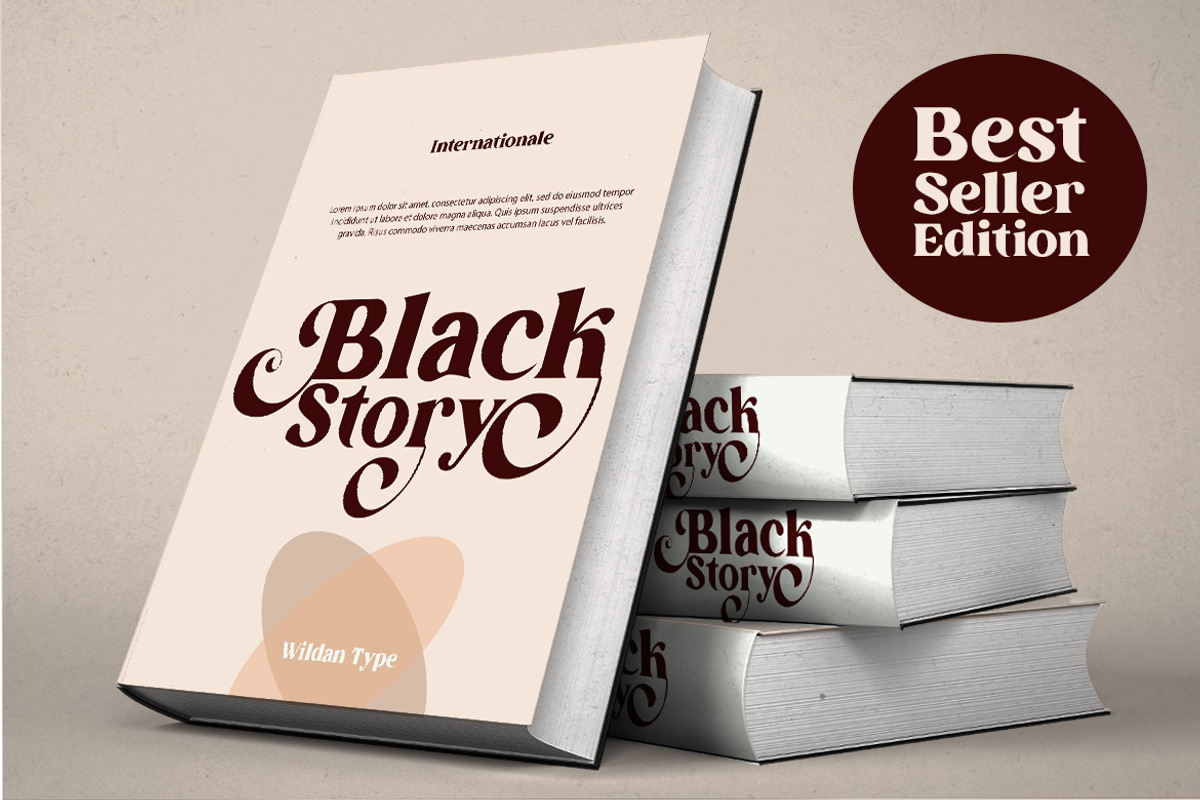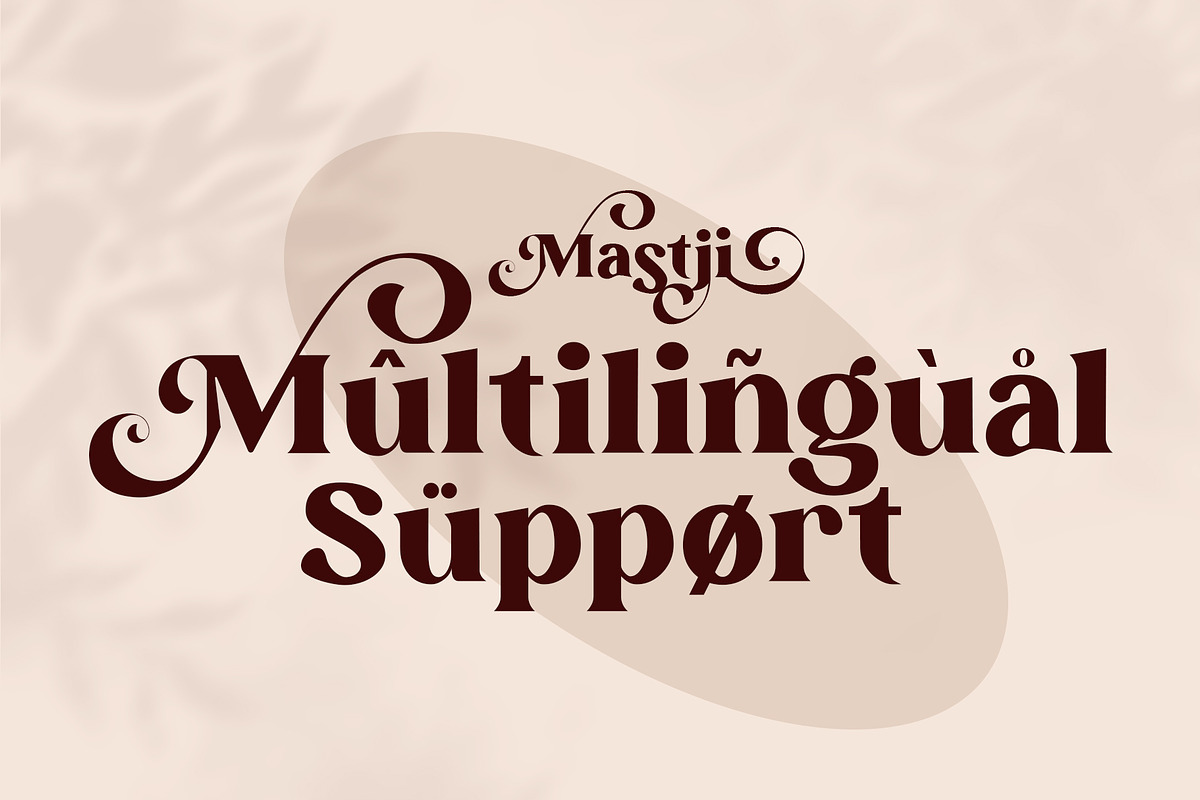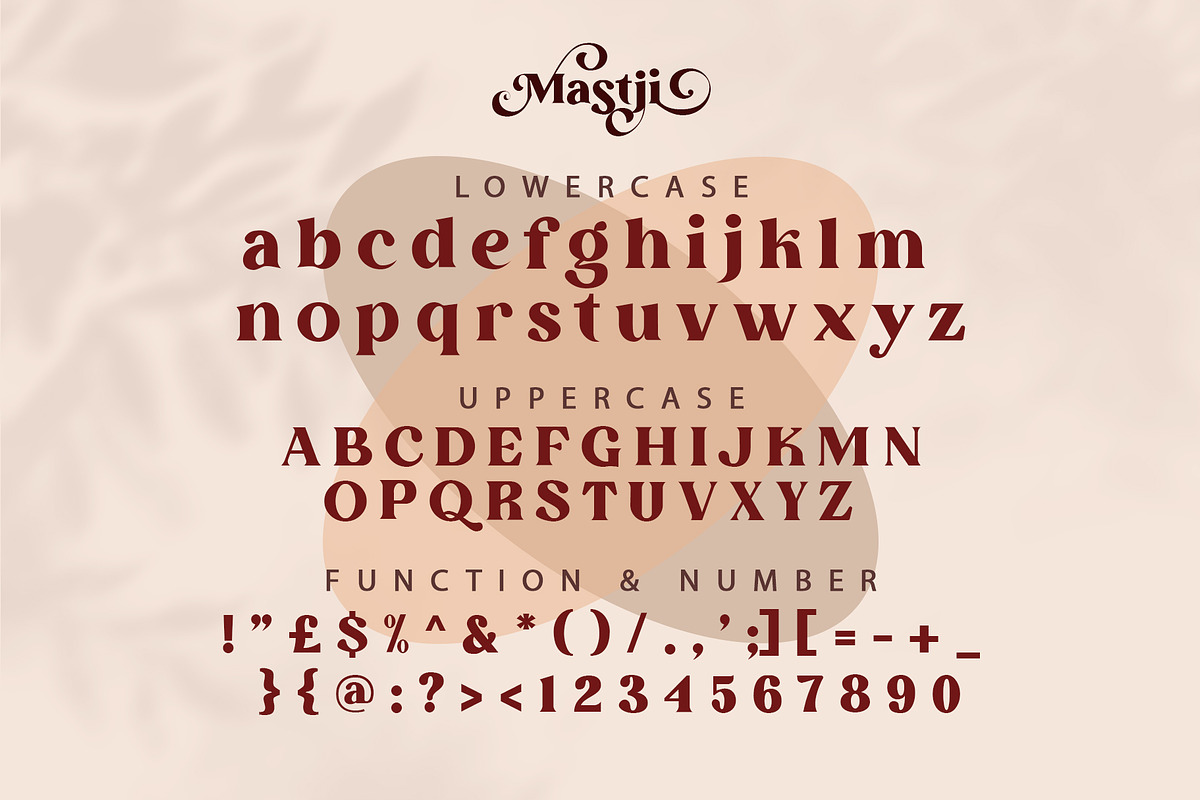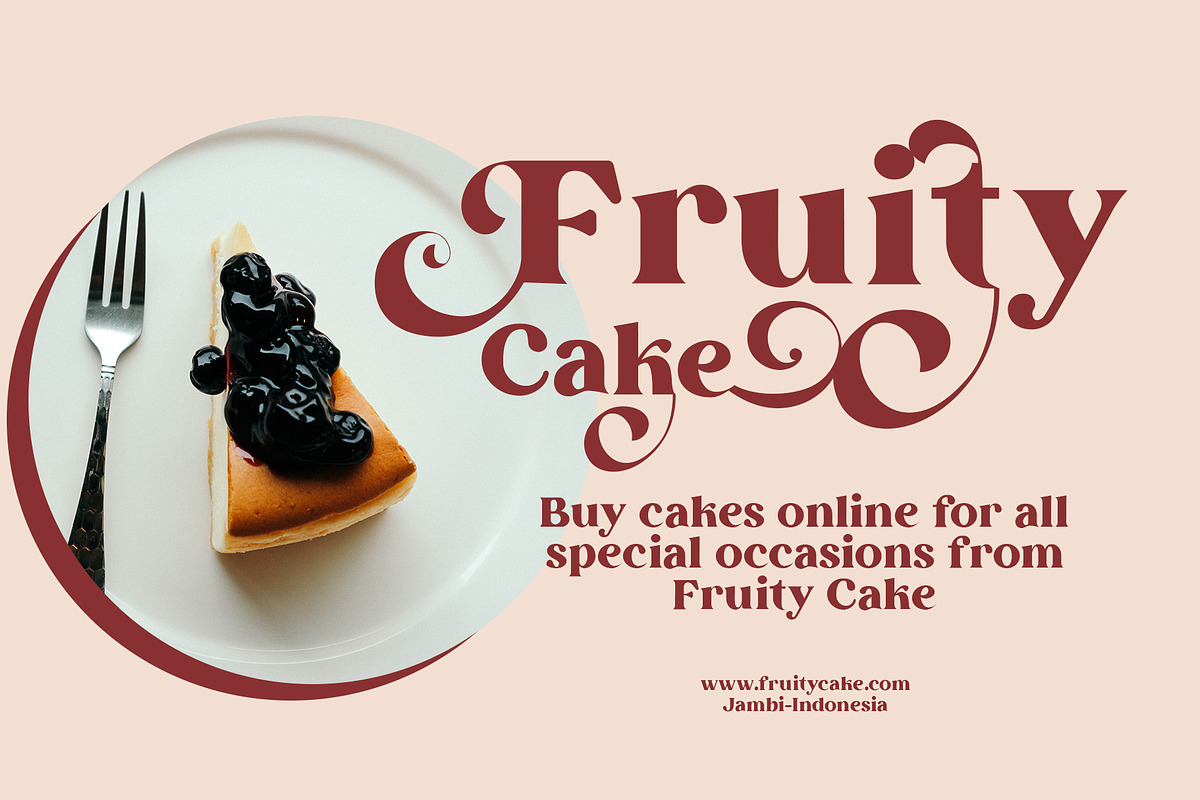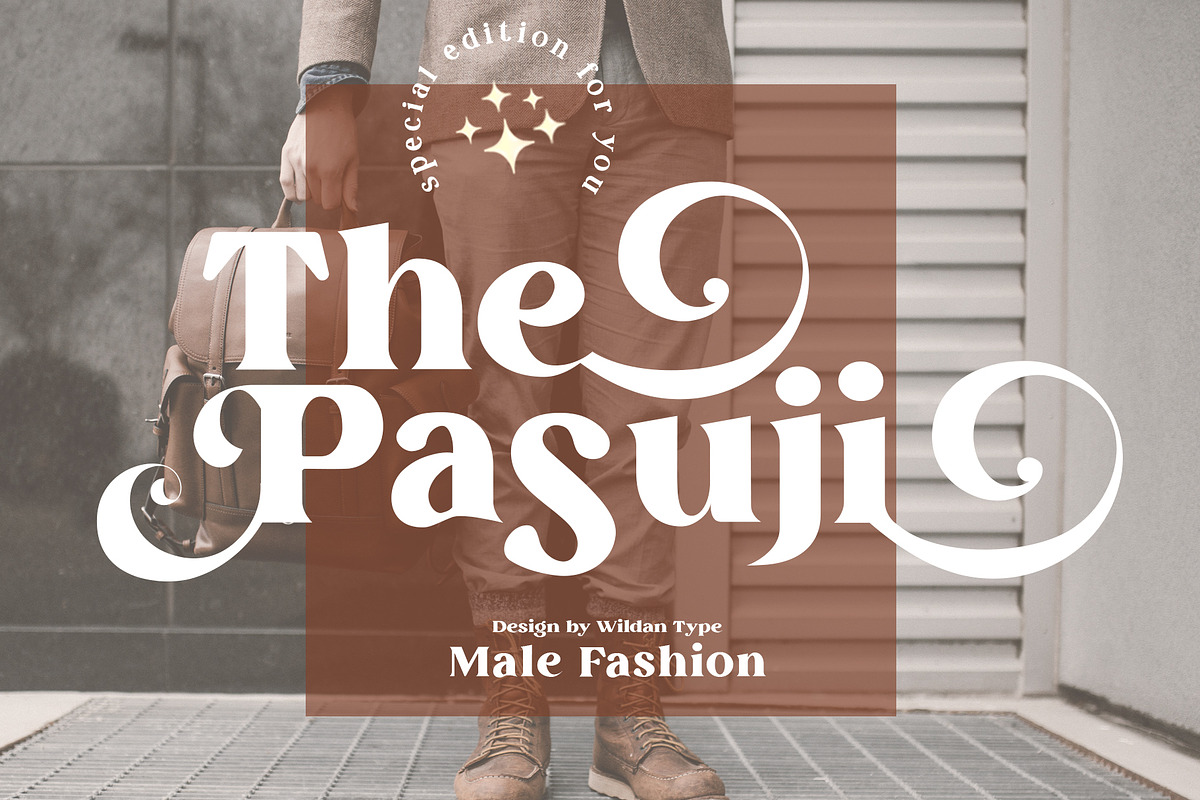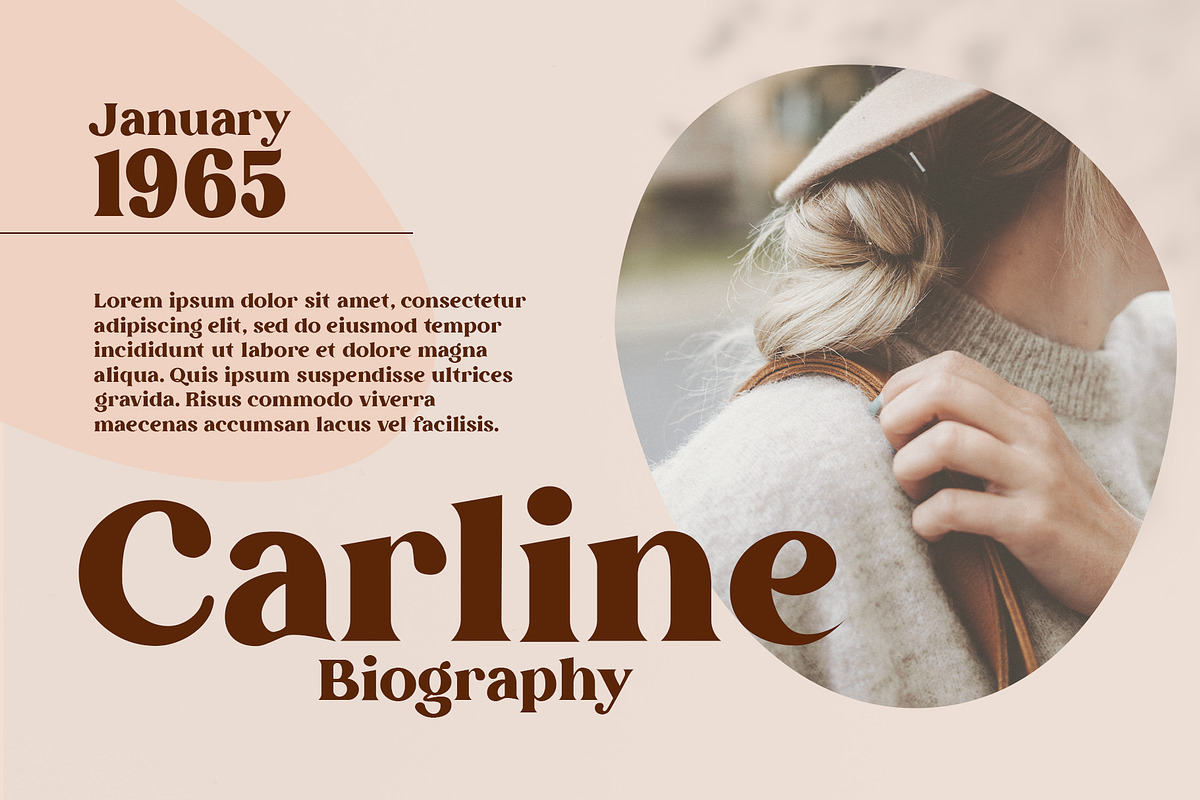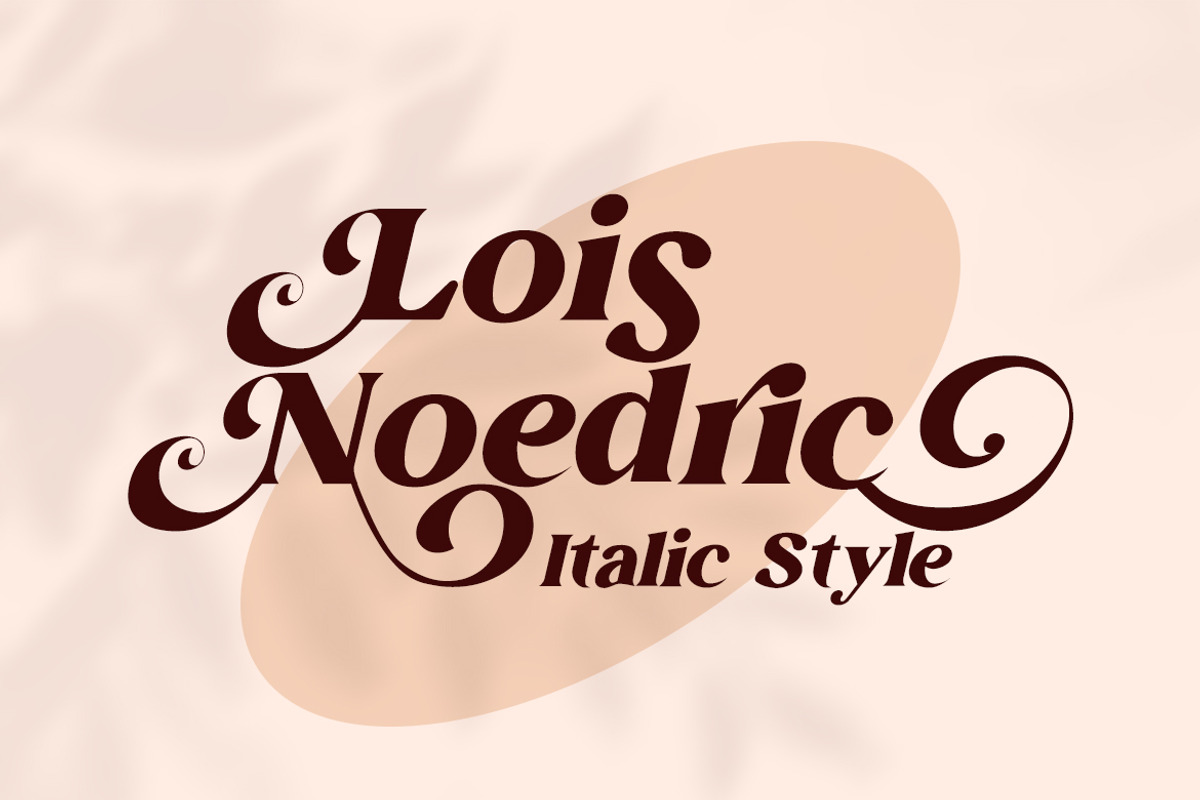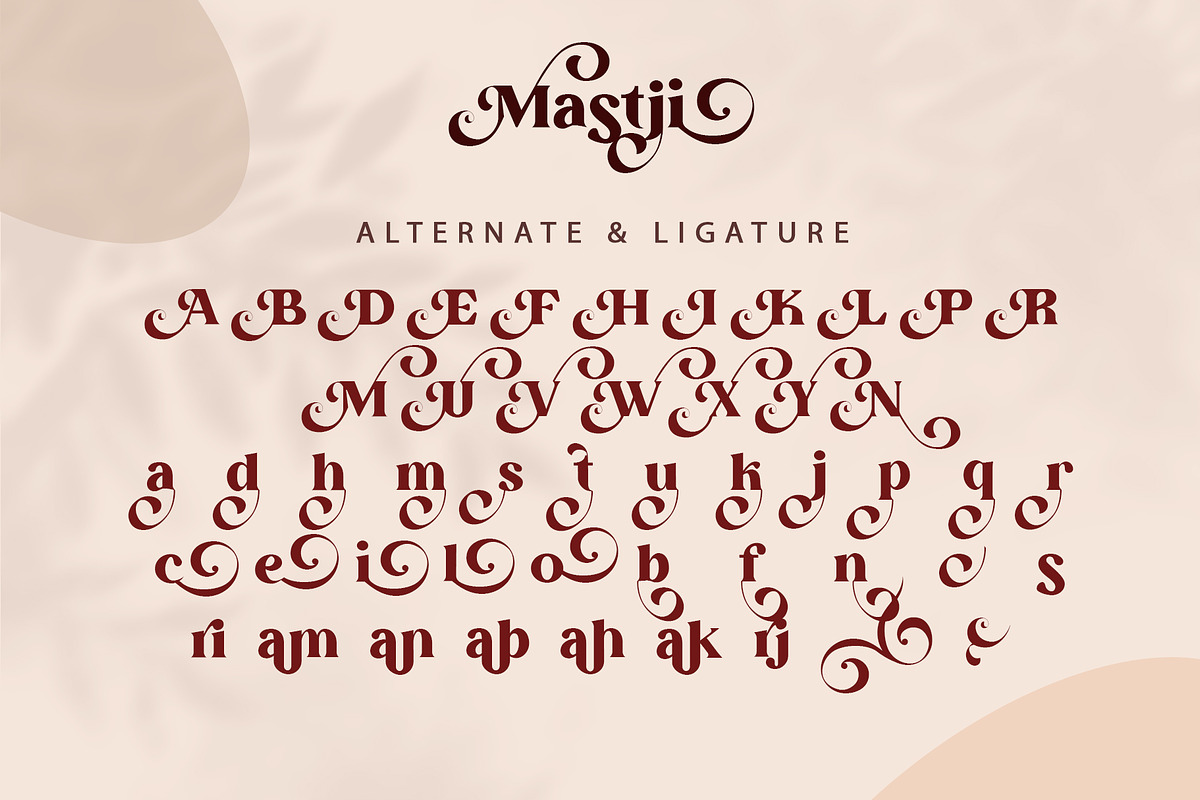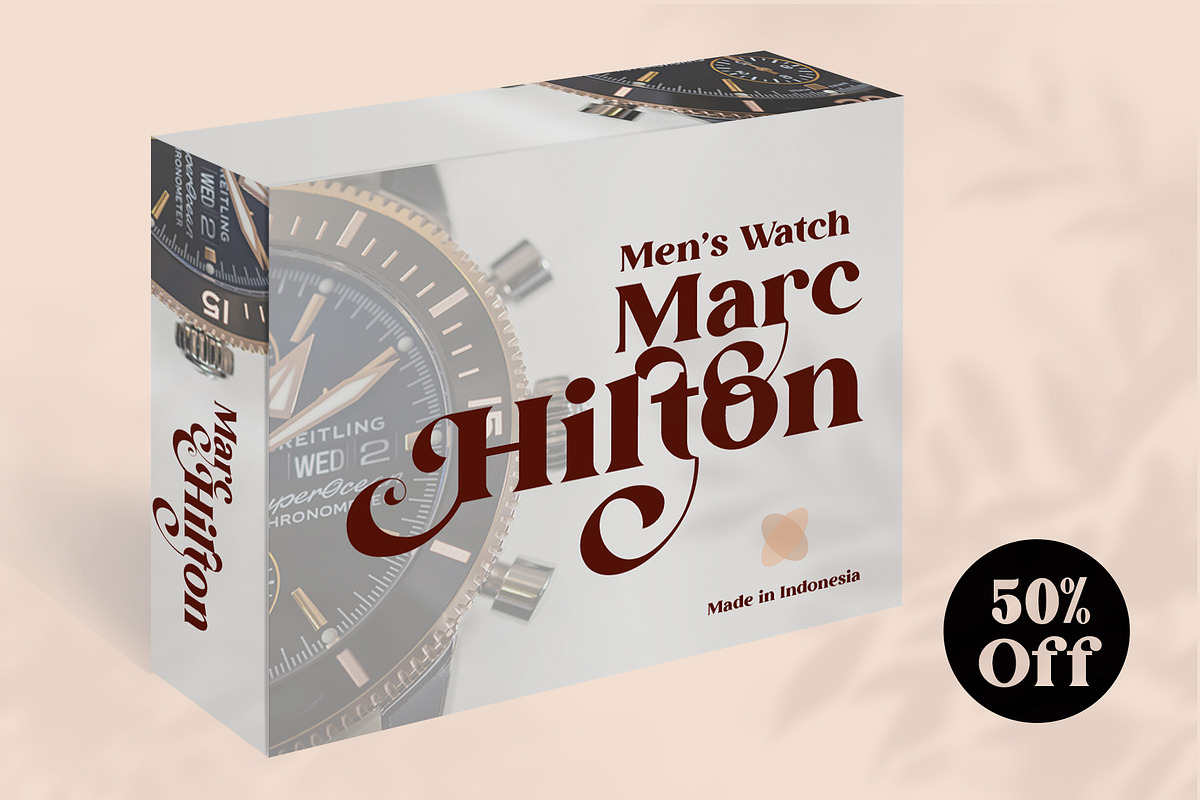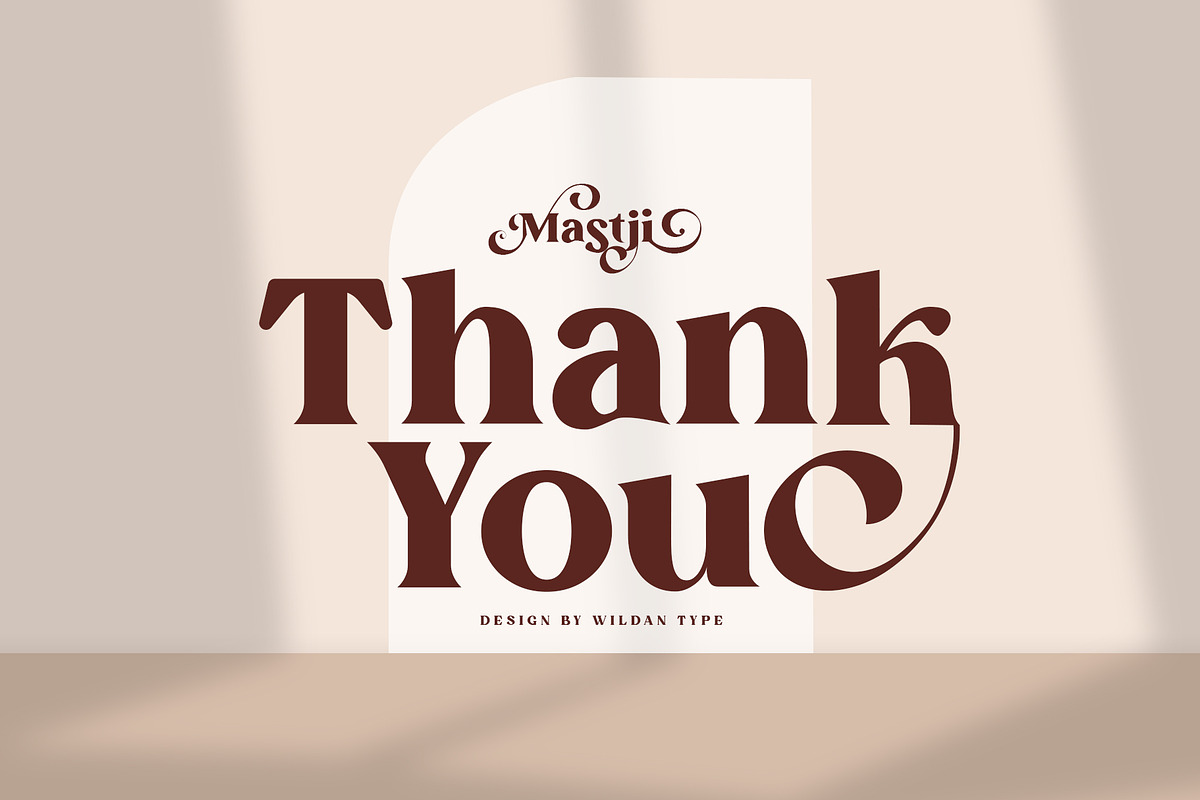
Mastji
Proudly present- Mastji, created by Wildan Type, A serif modern and bold typeface, Mastji has decorative alternate & beauty ligature. This typeface is perfect for an elegant & luxury logo, book or movie title design, fashion brand, magazine, clothes, lettering, quotes, and so much more.